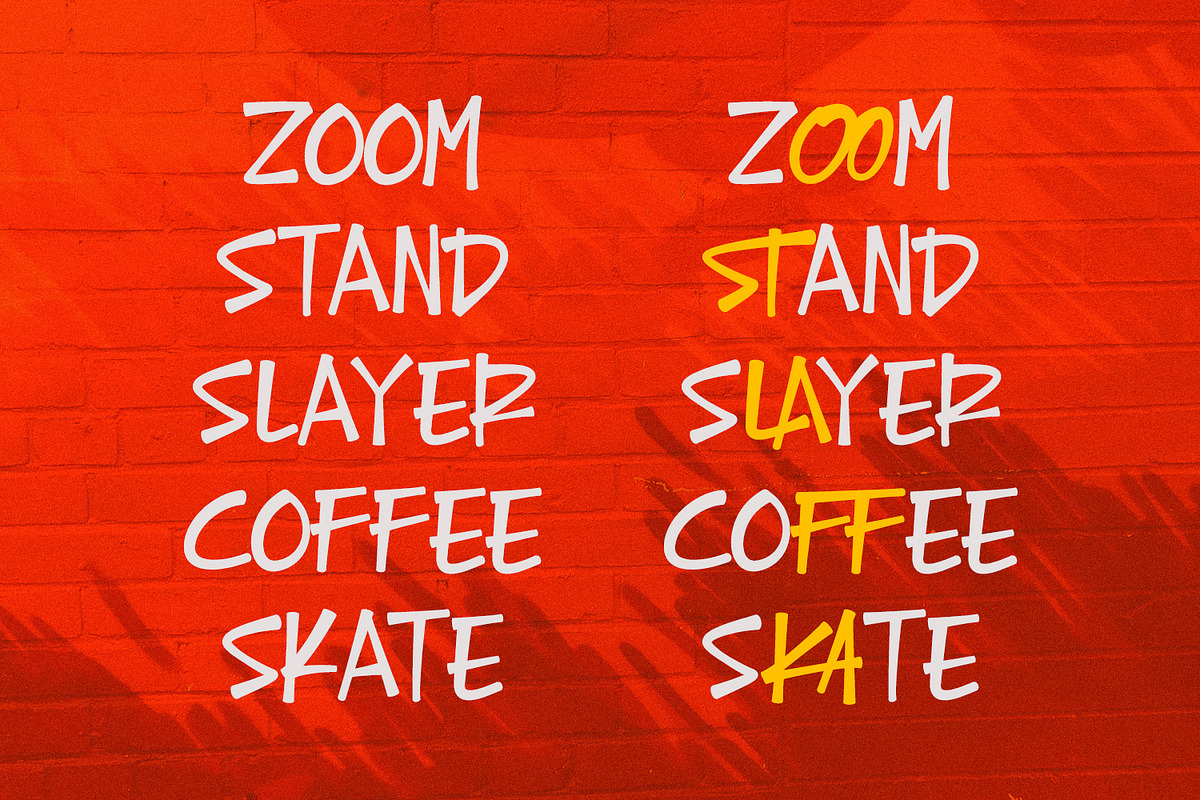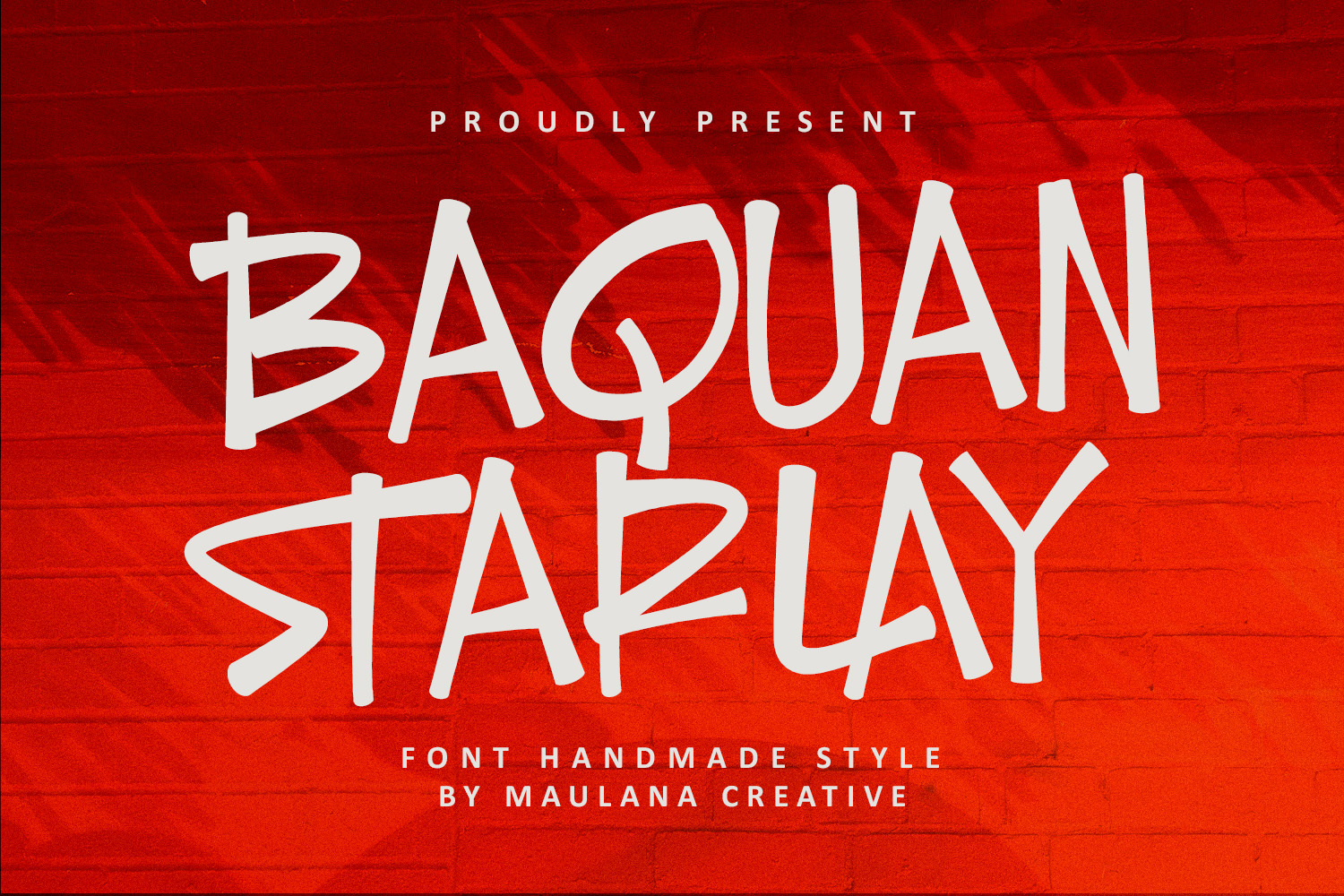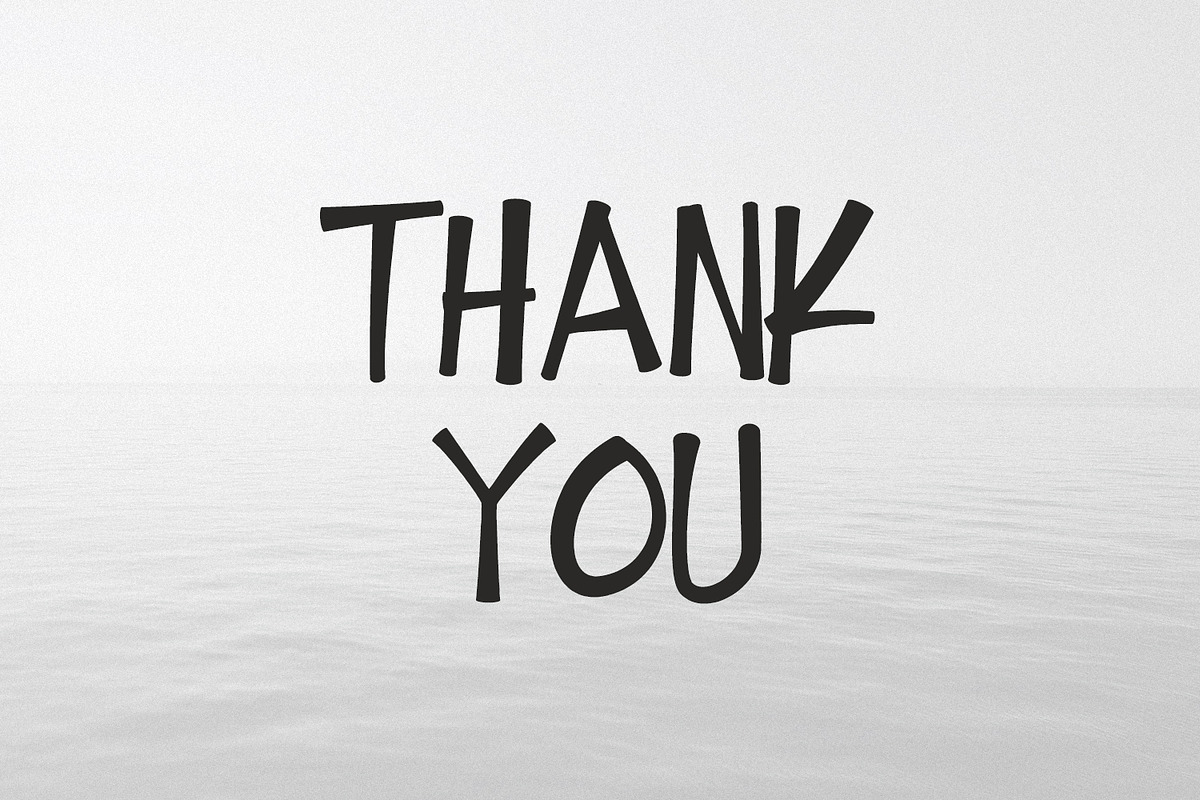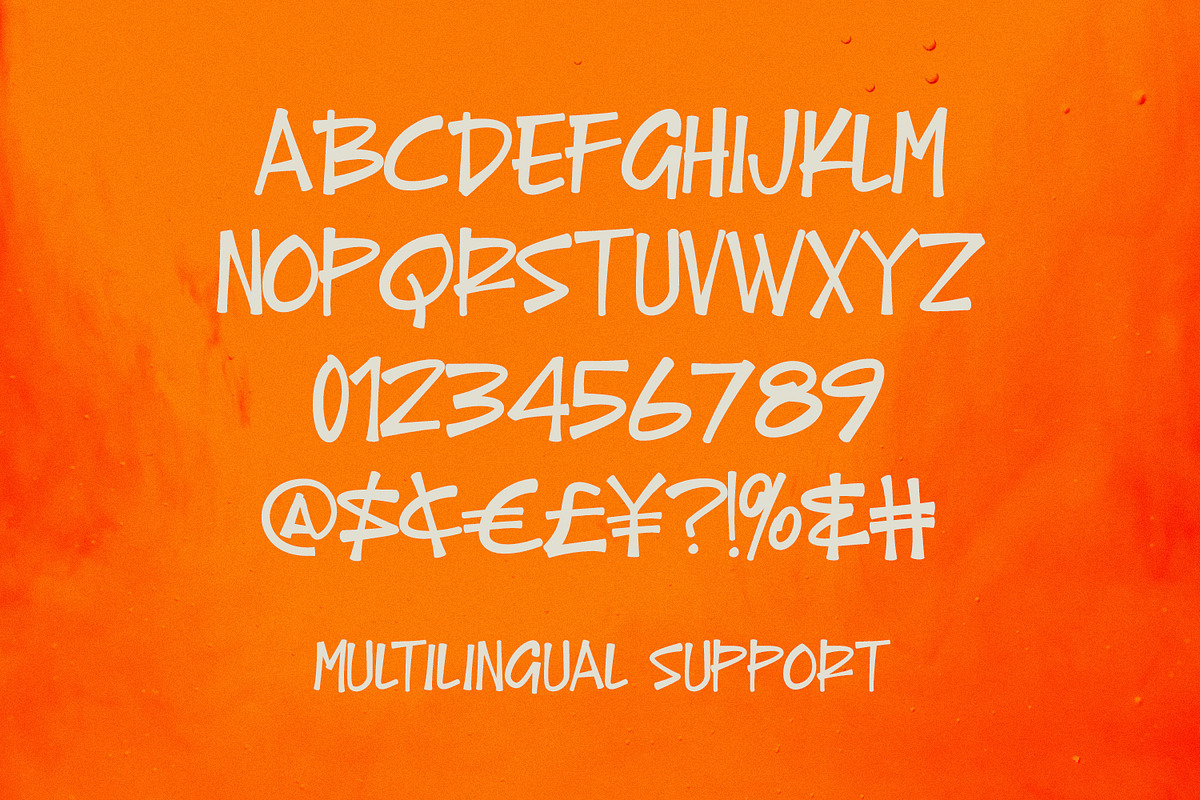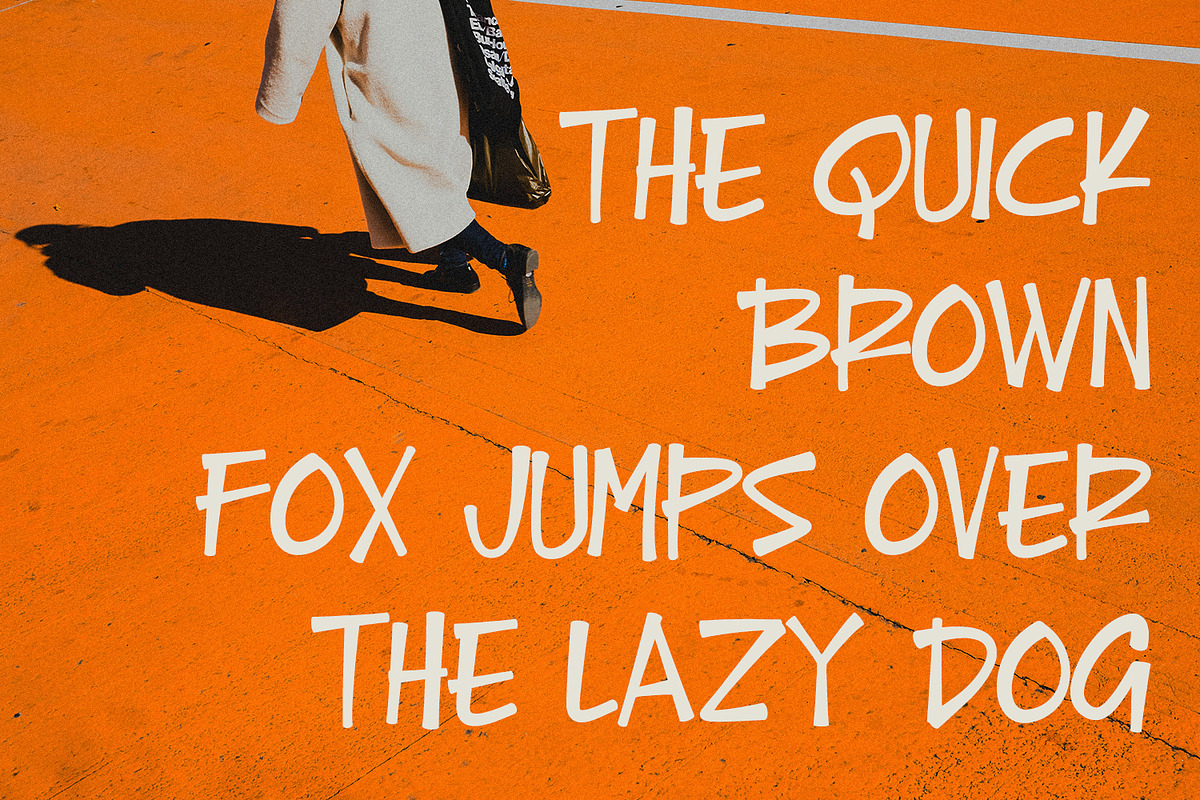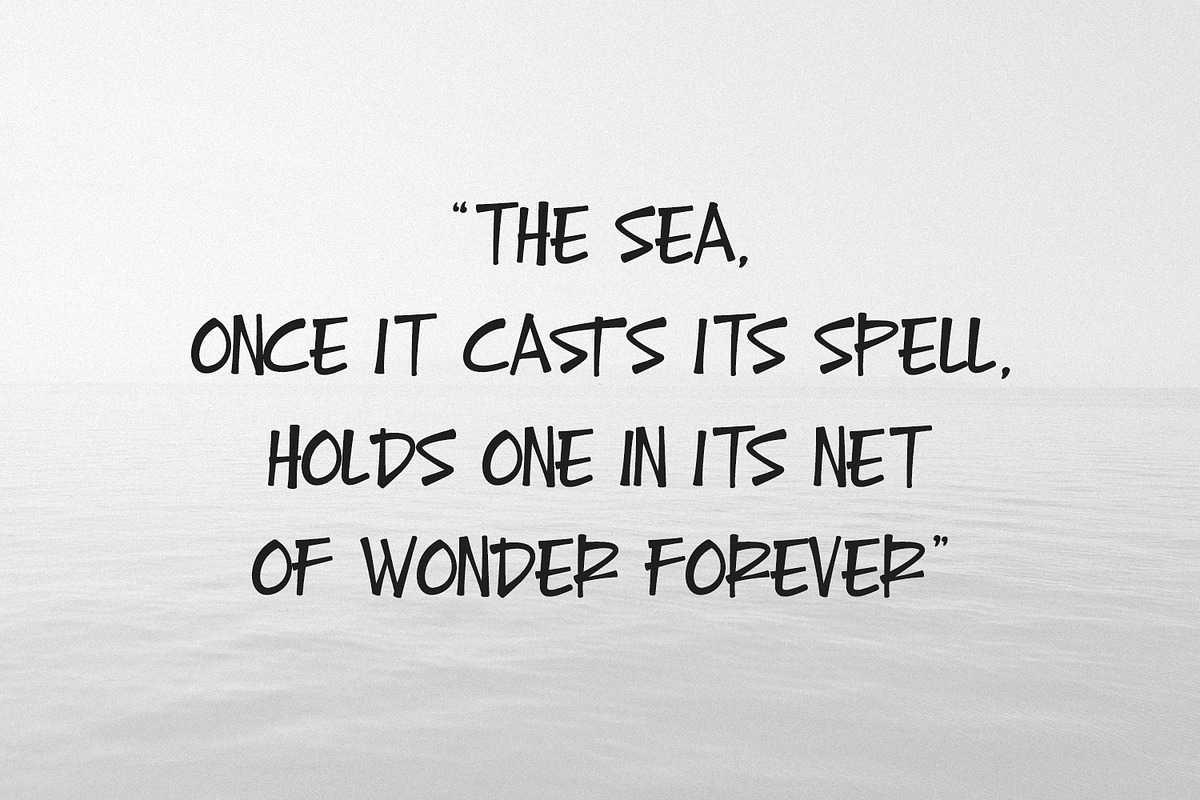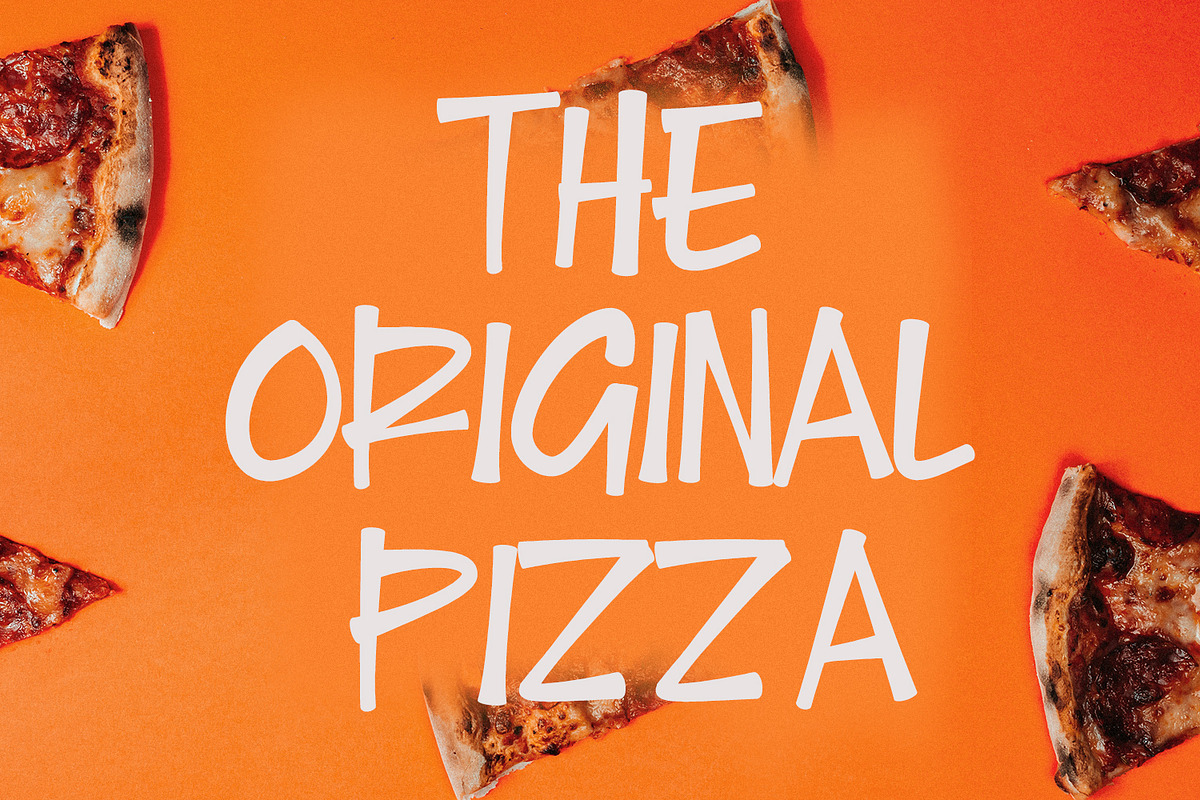
Baquan Starlay Font Handmade Style
Baquan Starlay is a cute handwritten display font. With bold stroke, fun character with a bit of ligatures. To give you an extra creative work. Baquan Starlay font support multilingual more than 100+ language. This font is good for logo design, Social media, Movie Titles, Books Titles, a short text even a long text letter and good for your secondary text font with sans or serif. Make a stunning work with Baquan Starlay font.